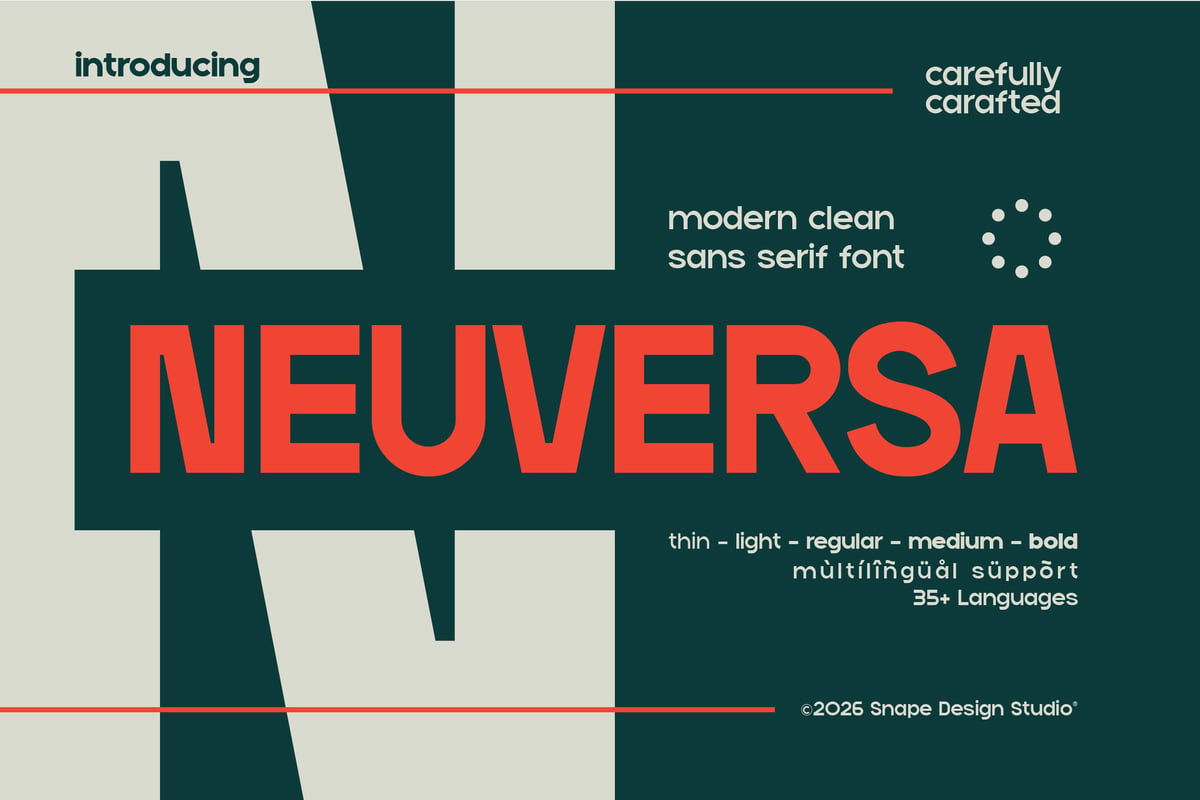
Neuversa - Modern Clean Sans Serif Font
Elevate your designs with Neuversa, a versatile modern sans serif font crafted for maximum readability and contemporary appeal. Neuversa is a modern clean sans serif typeface designed for versatility and exceptional readability. Carefully crafted with smooth geometry and balanced proportions, this font delivers outstanding performance across branding, logos, headlines, posters, packaging, editorial design, and digital projects. This comprehensive font family comes with multiple weights from Thin...